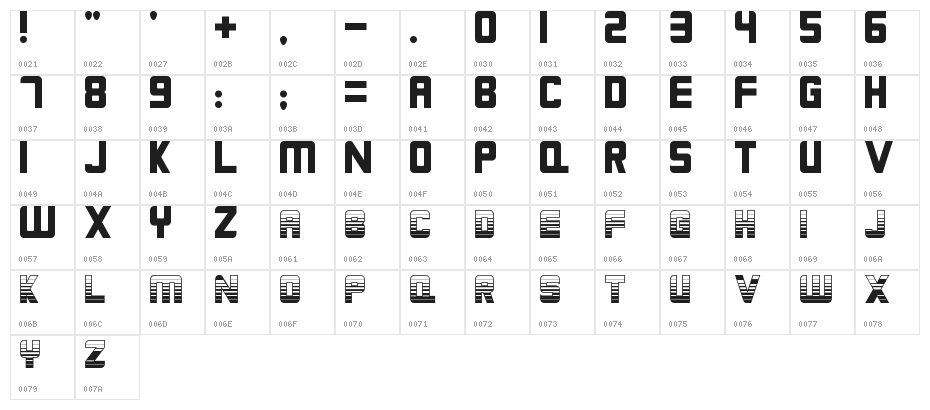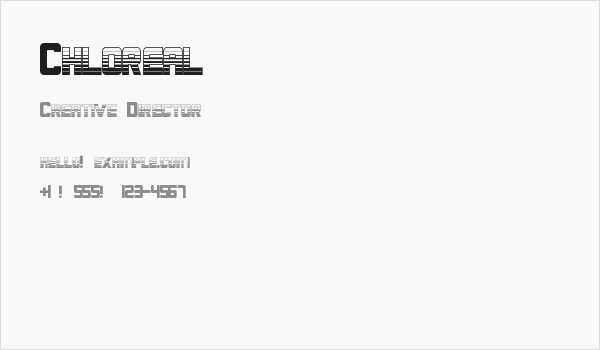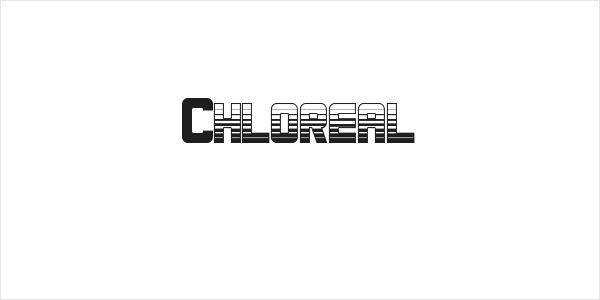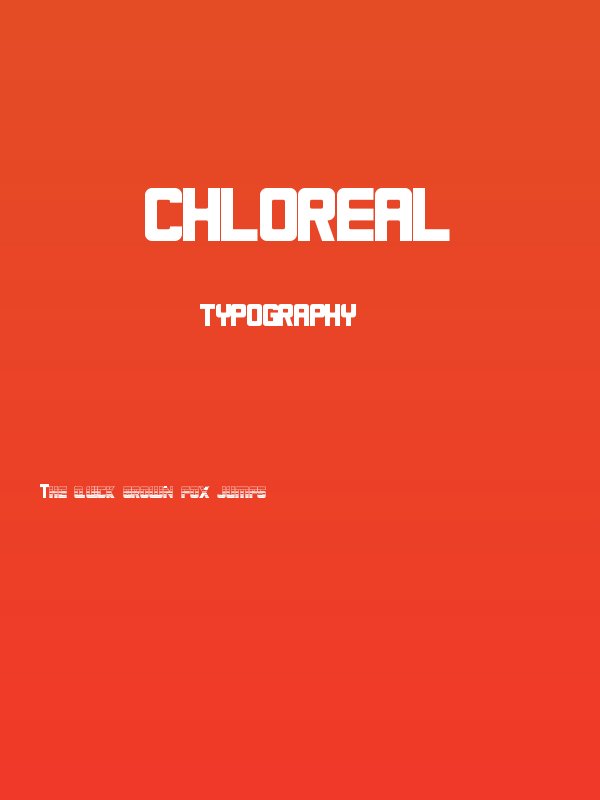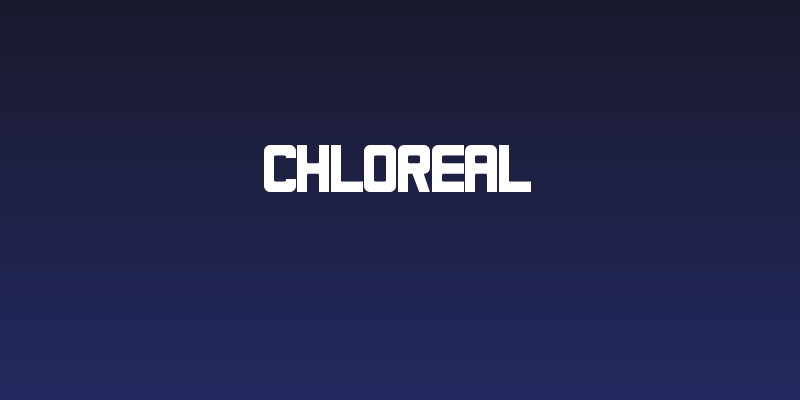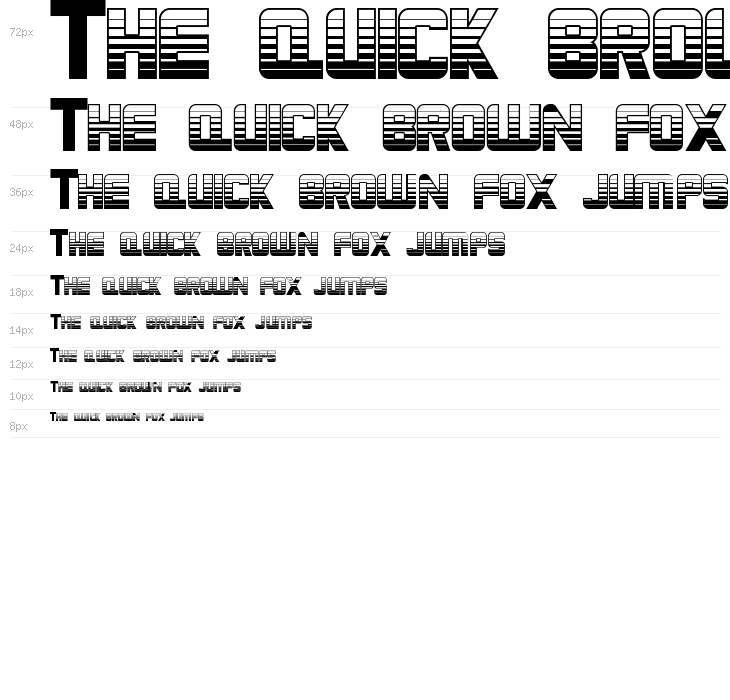
Chloreal Font
Chloreal Description
This font features a bold and modern design with a strong geometric structure. The uppercase letters are characterized by their solid, block-like appearance, which conveys a sense of strength and stability. The second style introduces a striped pattern within the letters, adding a dynamic and futuristic feel. The numerals are consistent with the bold style, maintaining the same weight and geometric form. Special characters are designed to match the overall aesthetic, ensuring visual harmony across all elements. The font's unique style makes it suitable for attention-grabbing headlines and modern branding projects.
Proposed ProjectsIdeal for modern branding, futuristic designs, and eye-catching headlines.